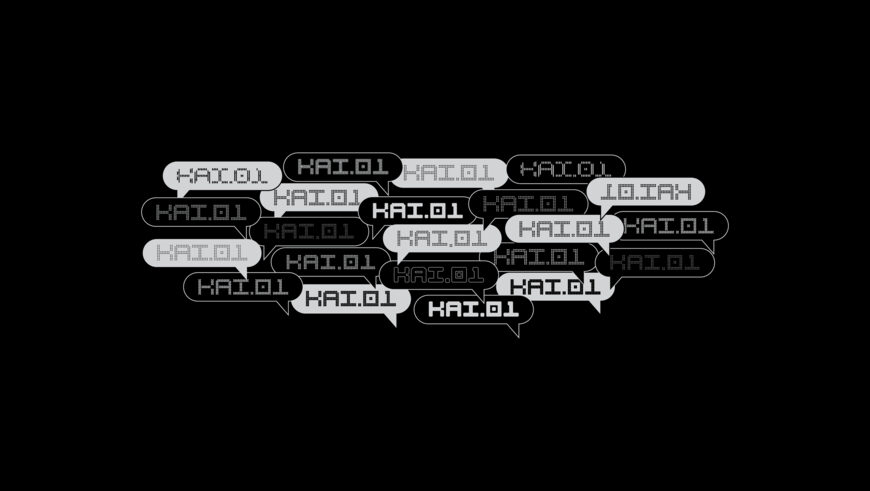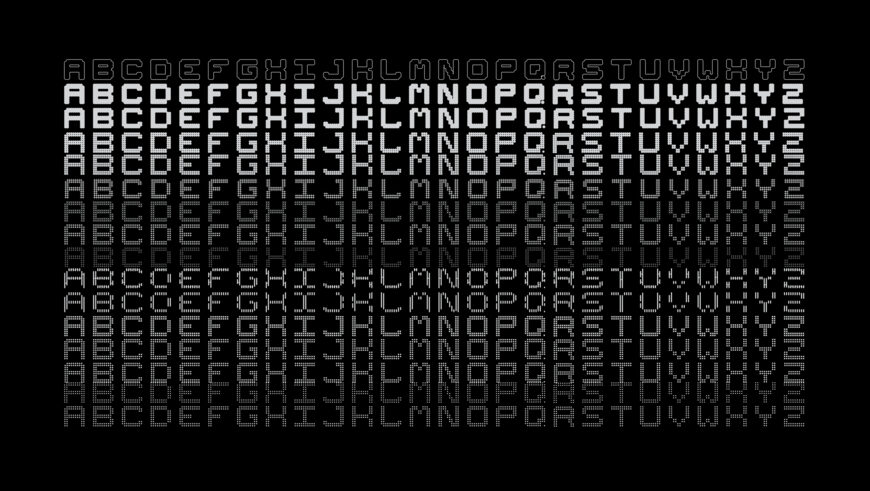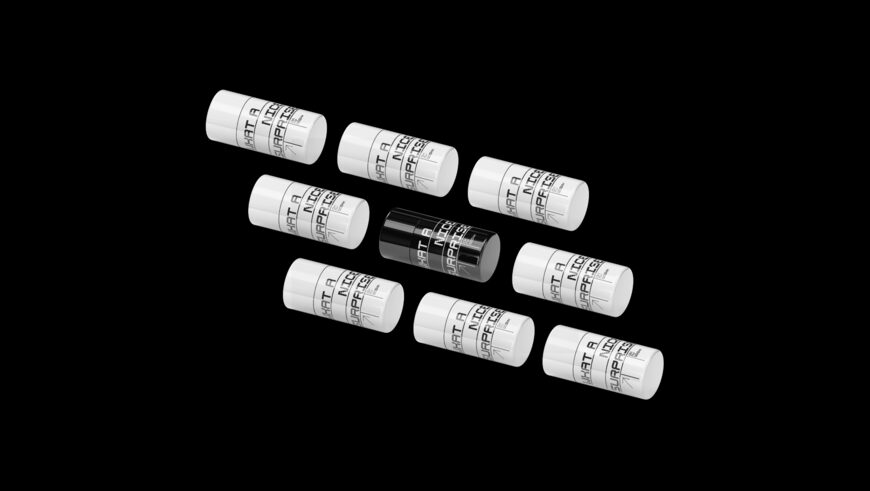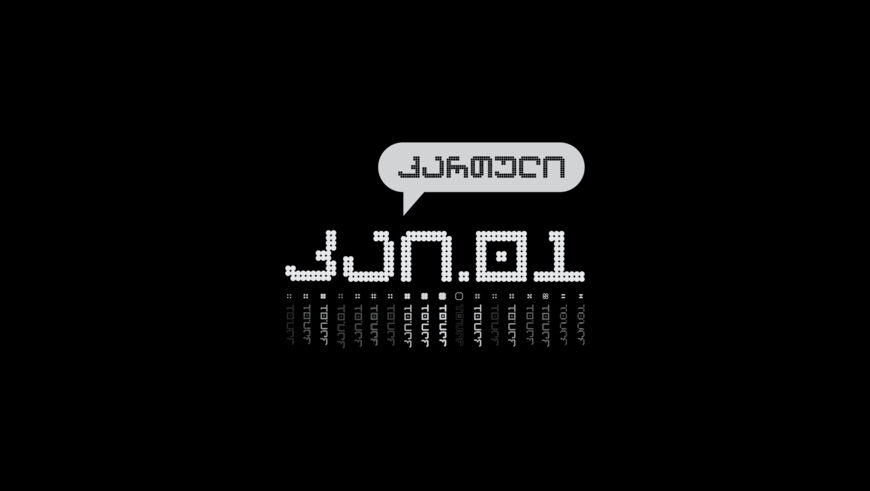
KAI.01 is an experimental display type family designed with a futuristic, digital aesthetic. Featuring modular, pixelated structures and dot-matrix inspired geometry, it blends retro tech vibes with modern sci-fi styling.
The typeface includes a versatile range of weights and textures—from solid blocky forms to fine grid patterns—making it ideal for eye-catching branding, futuristic packaging, posters, and digital interfaces. It offers a high-tech, edgy look for creative projects demanding a bold, contemporary statement.